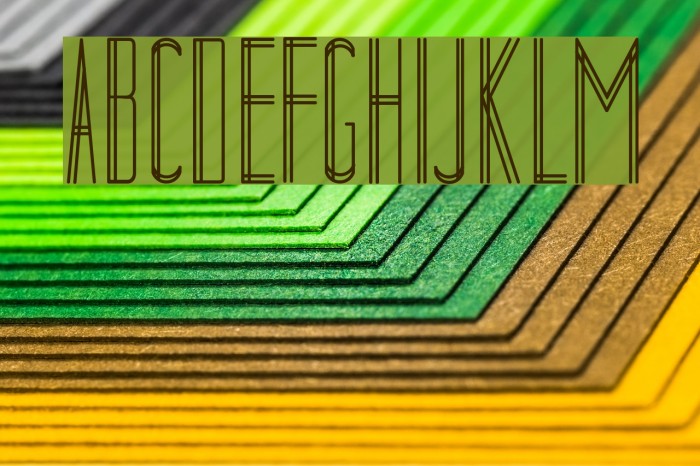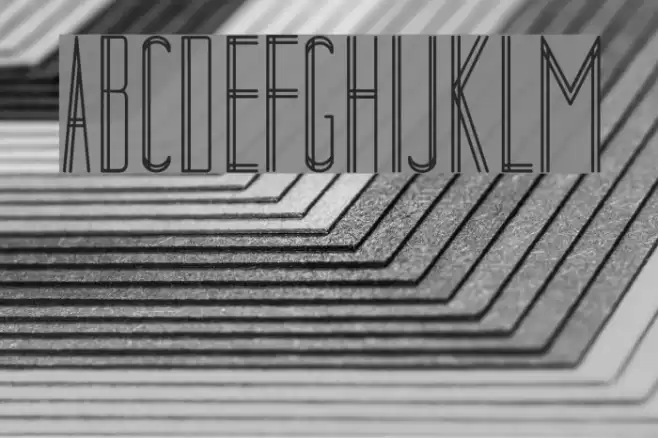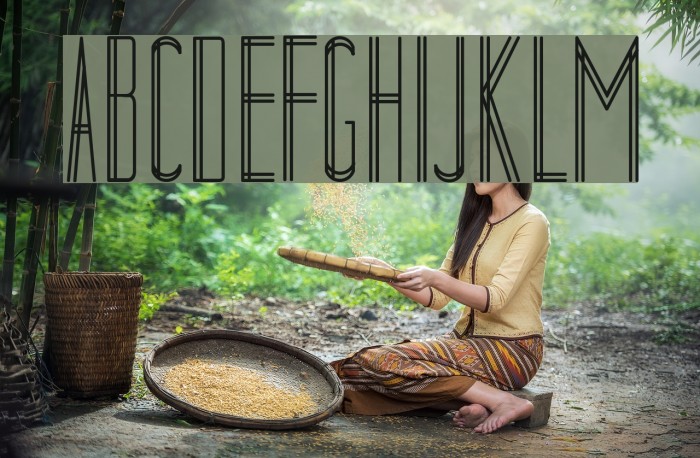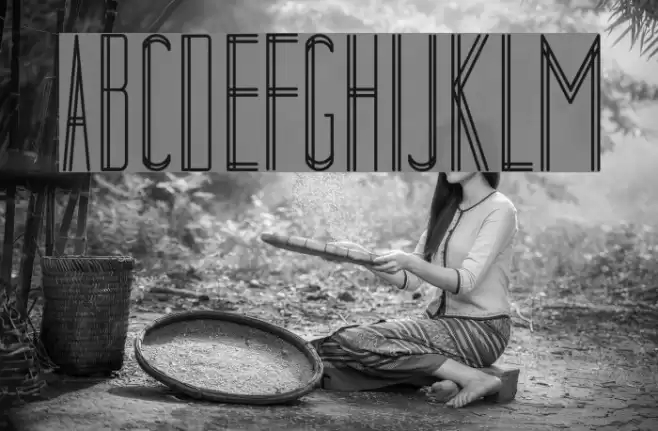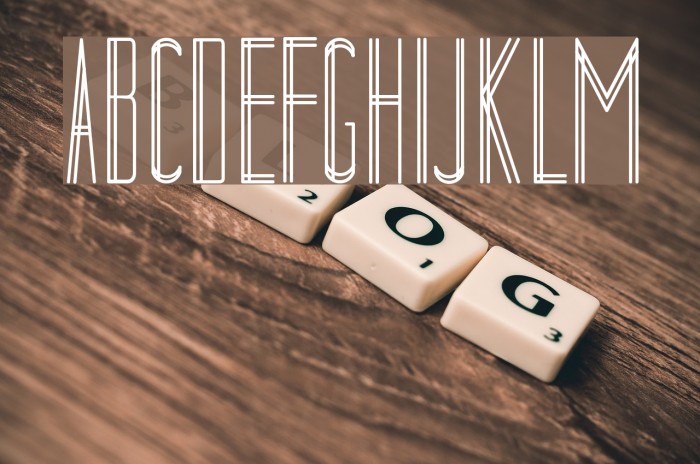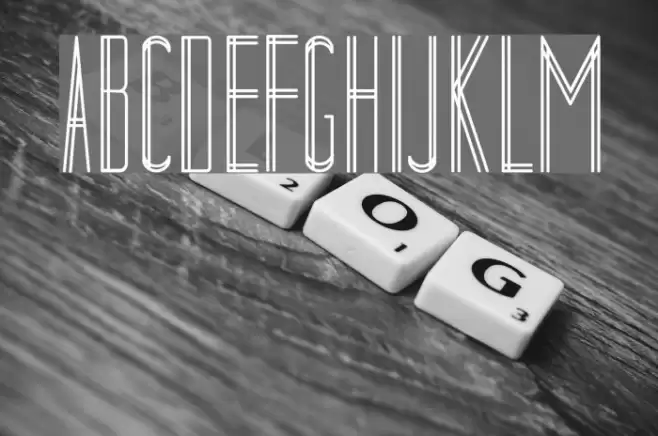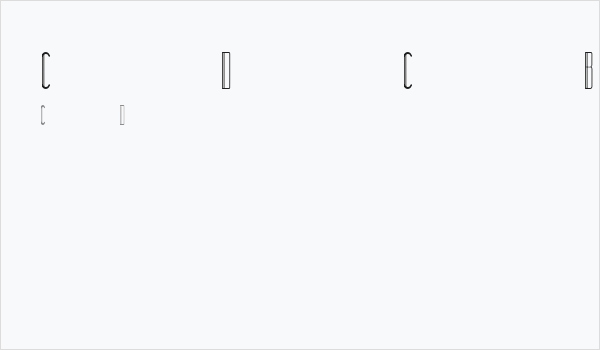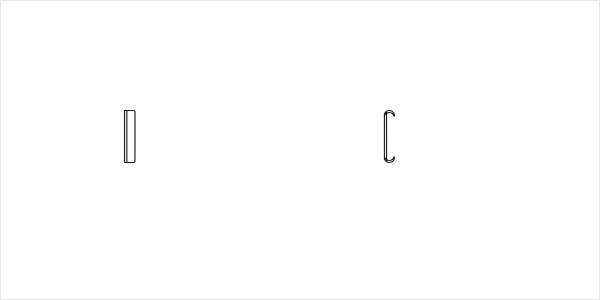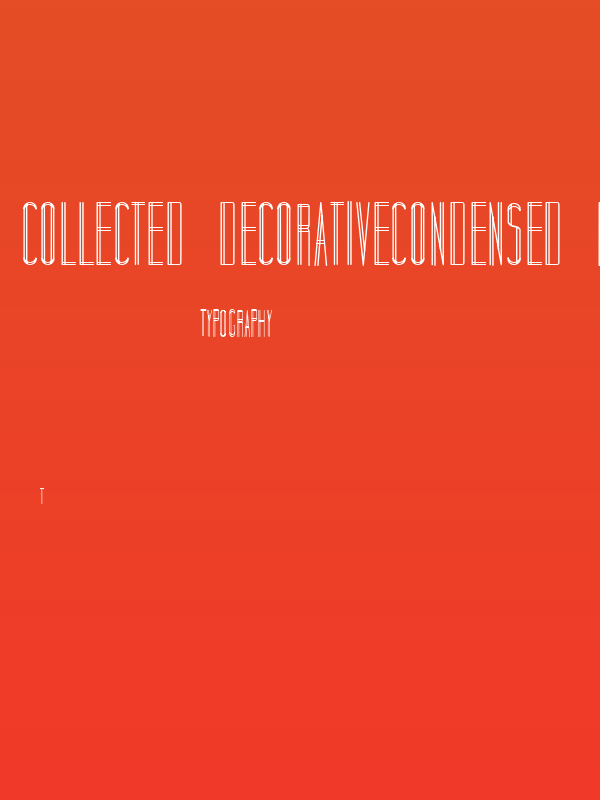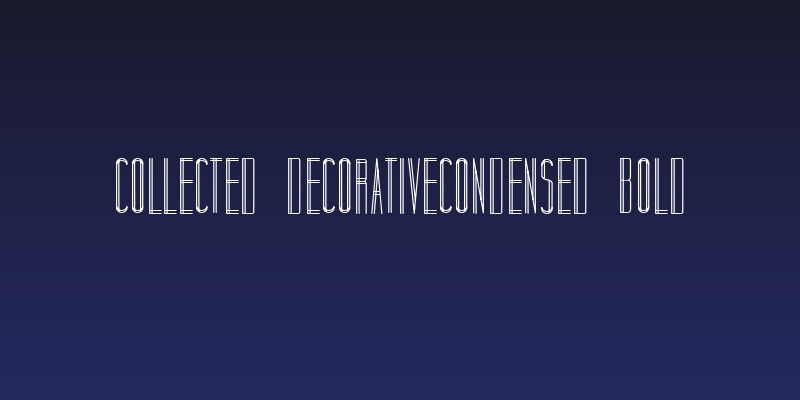
Collected DecorativeCondensed Bold Font
Collected DecorativeCondensed Bold Description
This font features a highly decorative and condensed style, characterized by tall, narrow letterforms with intricate line work. The uppercase letters exhibit a unique, artistic flair with elongated vertical strokes and minimal horizontal elements, creating a striking visual impact. The design is bold, making it stand out in any context, while the condensed nature allows for efficient use of space. The font's intricate details and geometric shapes lend it a modern yet artistic appearance, suitable for creative and eye-catching designs.
| Proposed Projects | Ideal for posters, album covers, branding, and any project requiring a bold, artistic statement. |